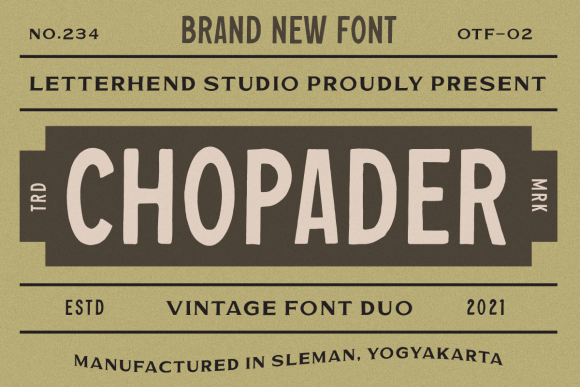
Behold Chopader Font, a monumental display typeface that stands tall, radiating an aura of strength and distinction. Enter a realm of visual eloquence where your designs will be transformed, resonating with a captivating charm that leaves an indelible mark.
With its bold strokes and vintage undertones, Chopader is a font of unmatched character. It's a masterpiece meticulously crafted to elevate your posters, flyers, and prints to new heights of visual allure. Its enduring charm and timeless elegance will captivate your audience, ensuring your messages shine brighter than ever before.
Step into the realm of creative possibilities with Chopader. Unleash your imagination and witness your designs take on a life of their own. From whimsical posters that ignite the senses to flyers that command attention, Chopader is your steadfast companion, guiding you toward a world of limitless expression.
Dive into the depths of your creativity and let Chopader be your muse. Craft breathtaking posters that evoke emotions, create flyers that announce your events with panache, and design prints that leave a lasting impression. With Chopader, the possibilities are endless; your imagination is the only limit.
Don't settle for ordinary fonts; embrace the extraordinary with Chopader. Its vintage charm, coupled with its bold and confident demeanor, will elevate your designs, making them shine with unparalleled brilliance. Experience the transformative power of Chopader today and embark on a journey of visual enchantment.